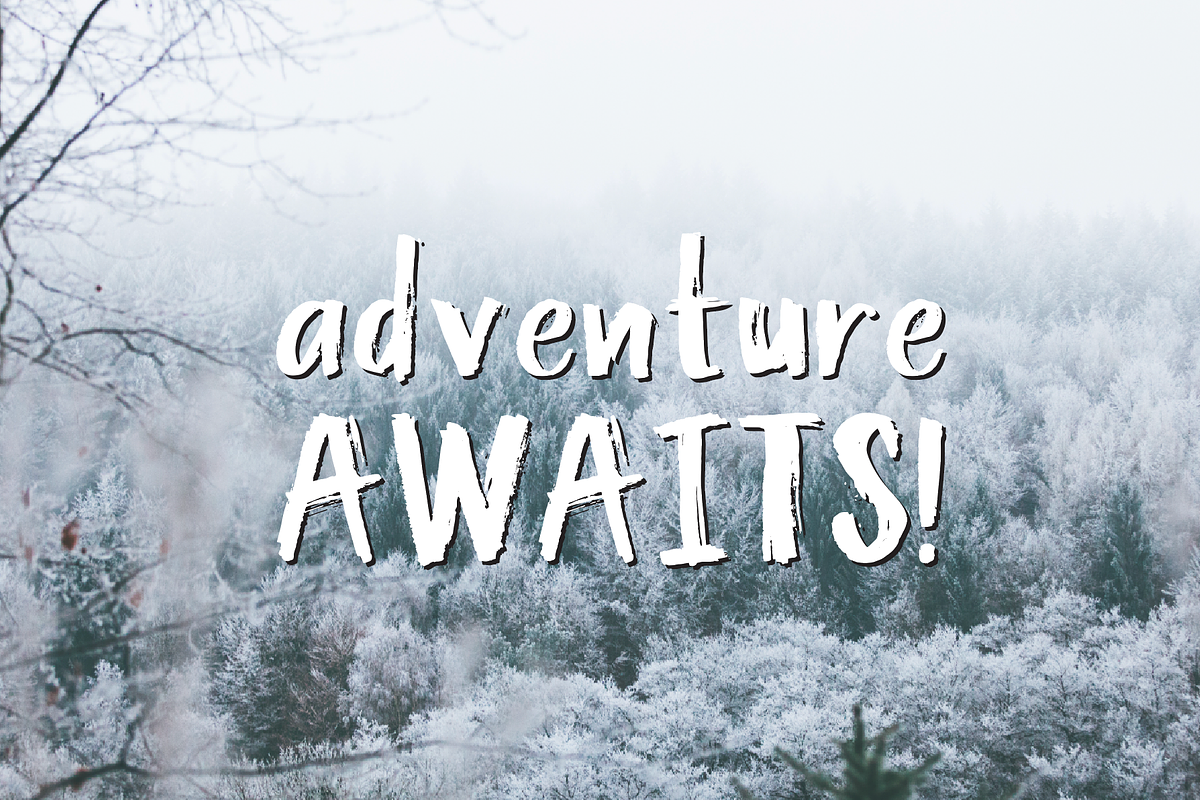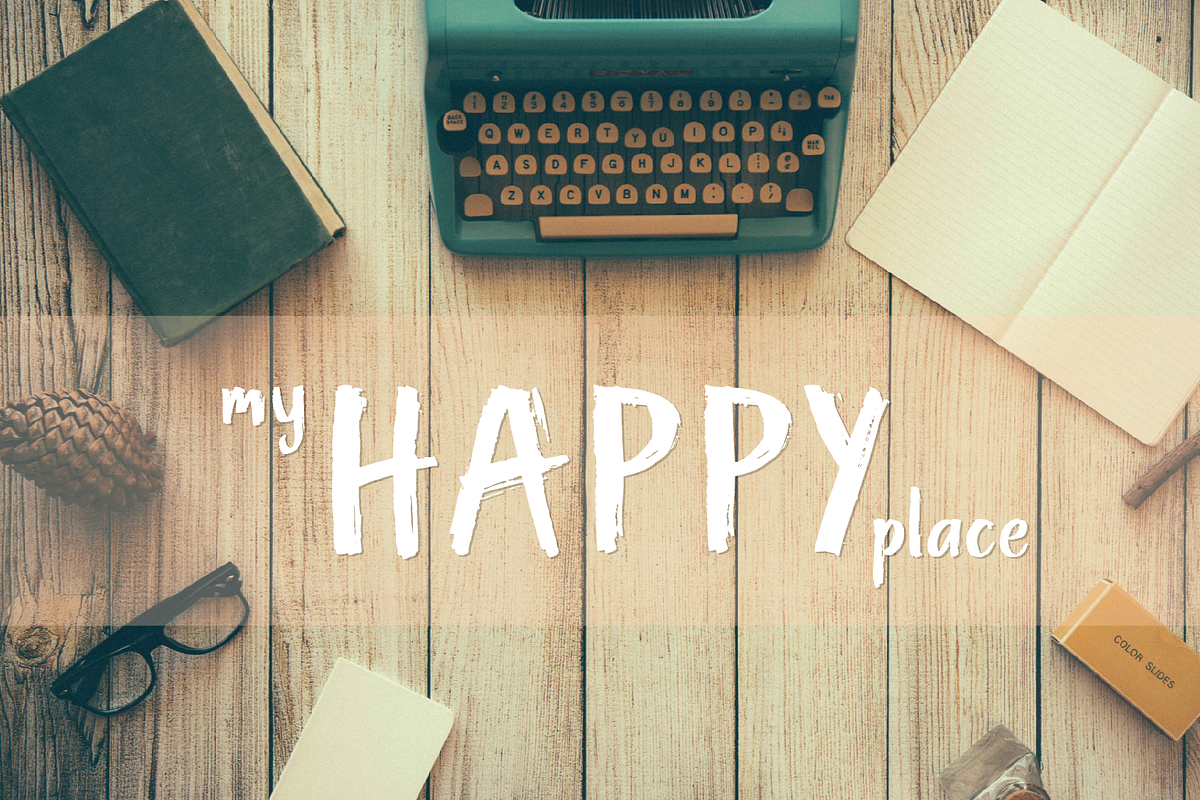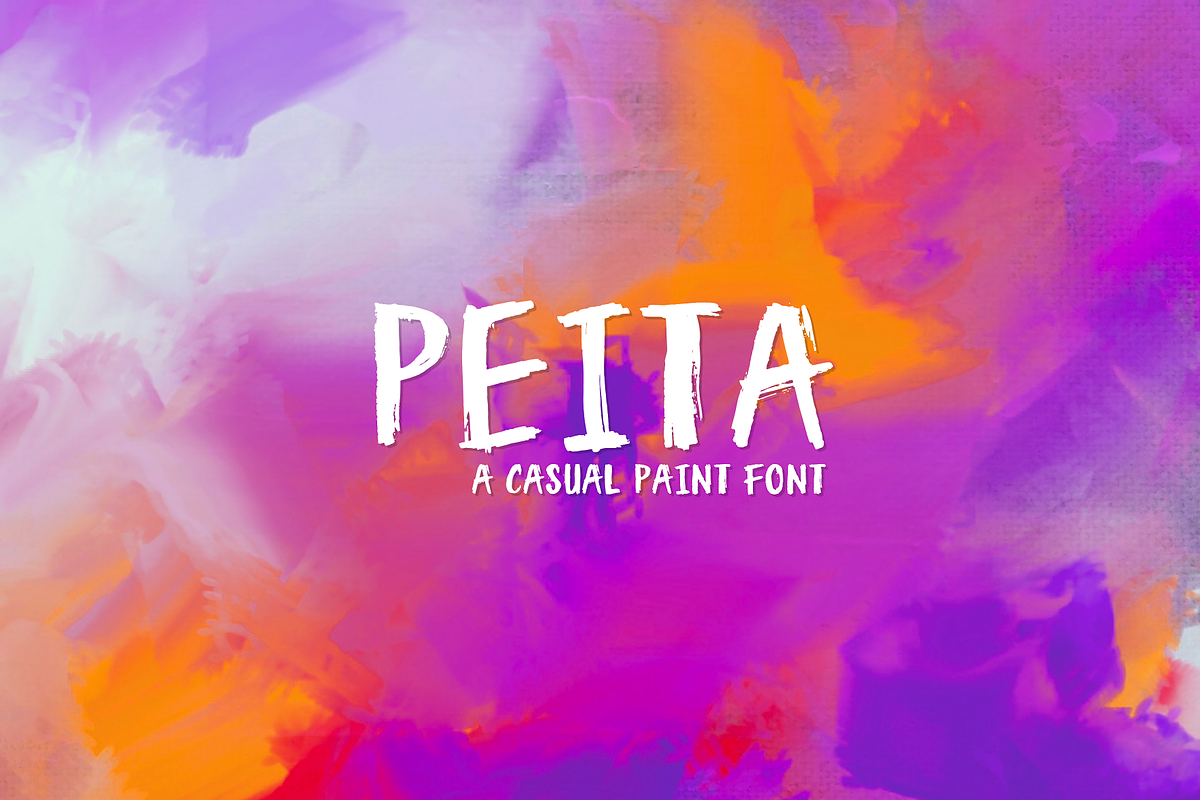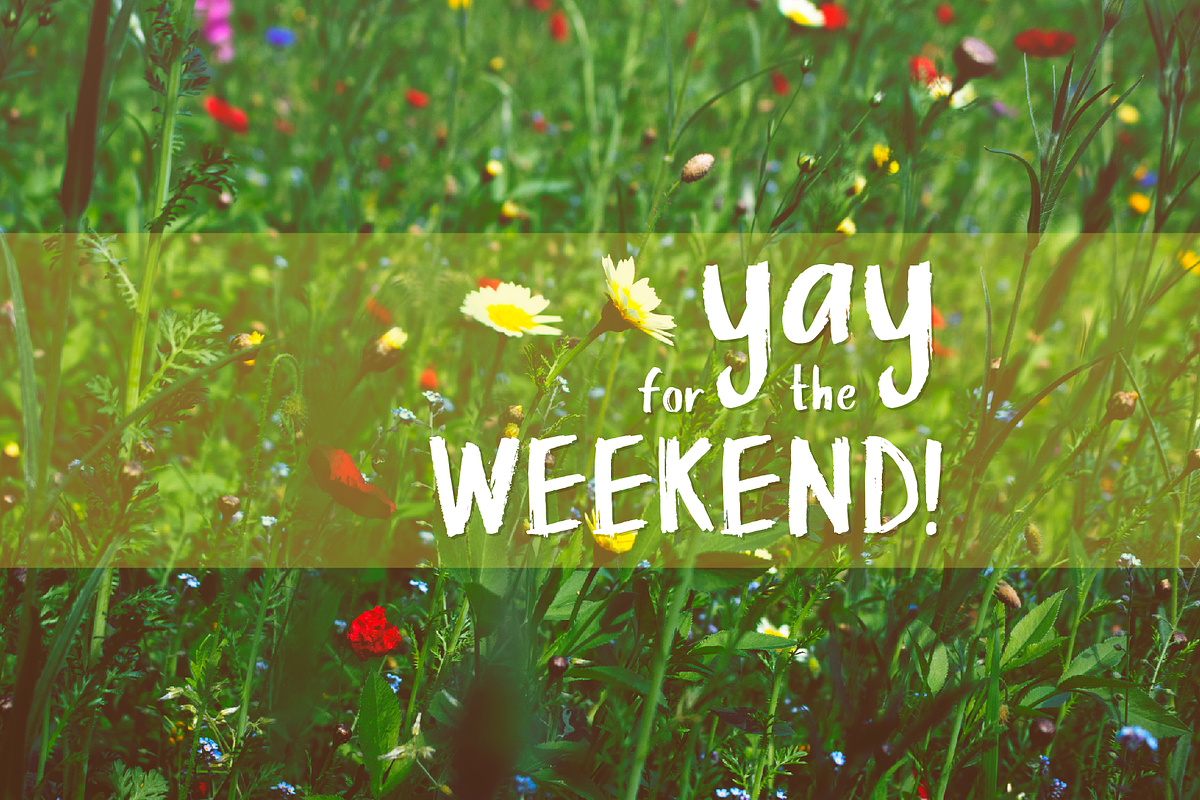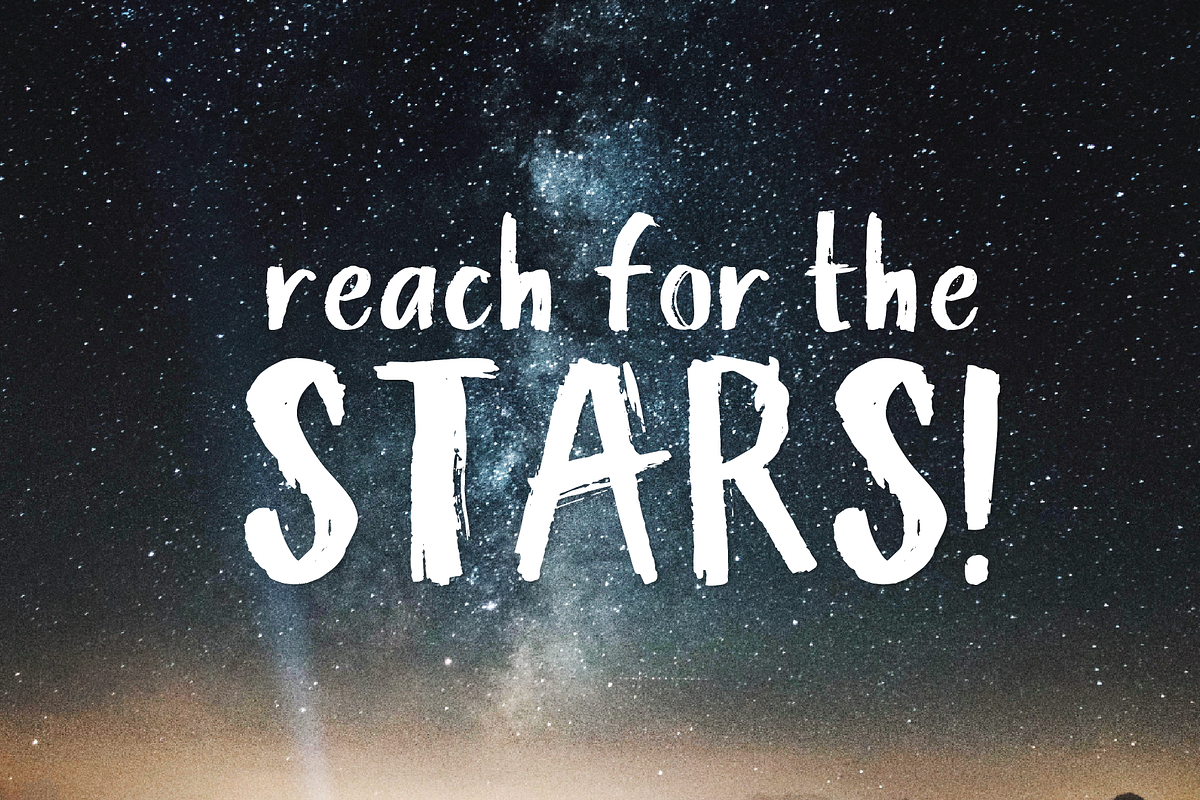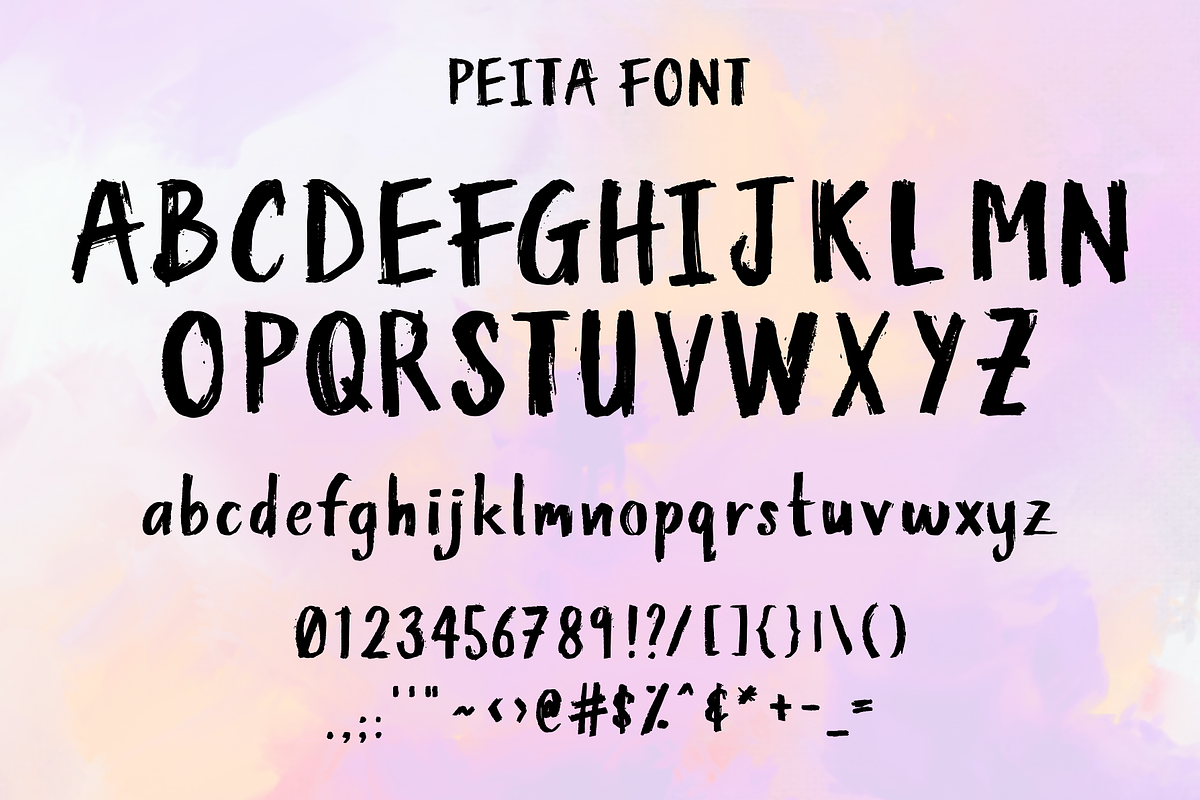
Peita - A casual paint font!
Introducing: Peita! A handcrafted paint font complete with real stroke marks!
Peita is perfect for those Boho social media posts, text overlay for posters and chalkboard art.